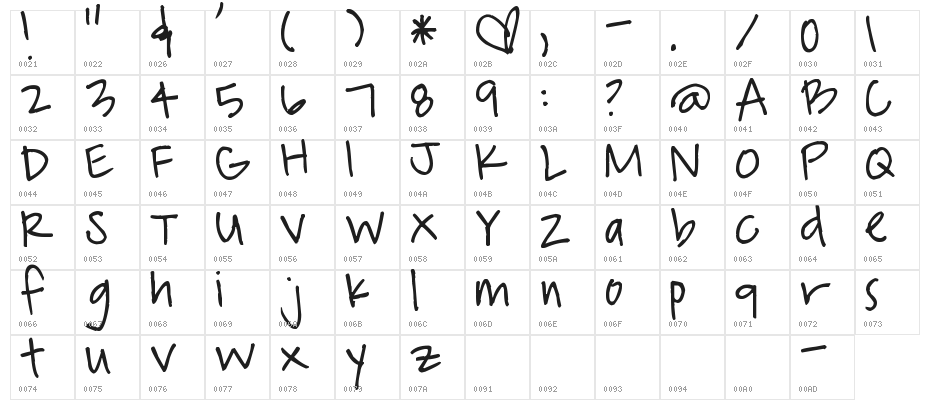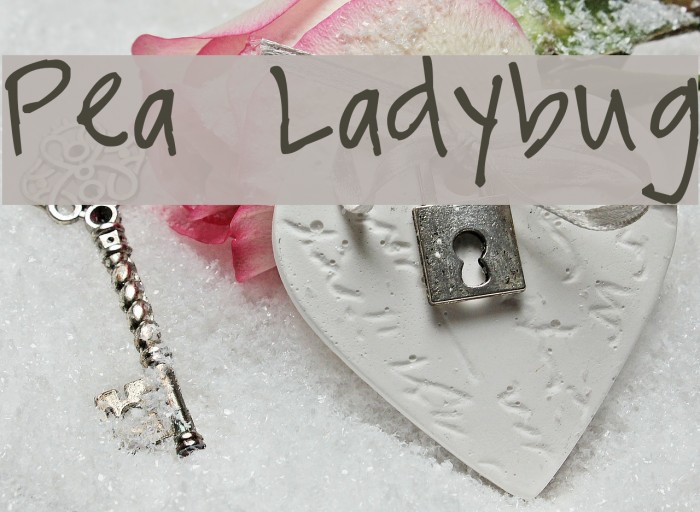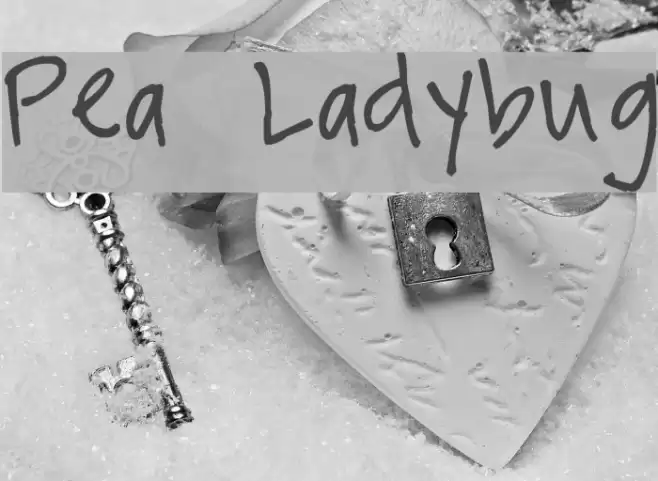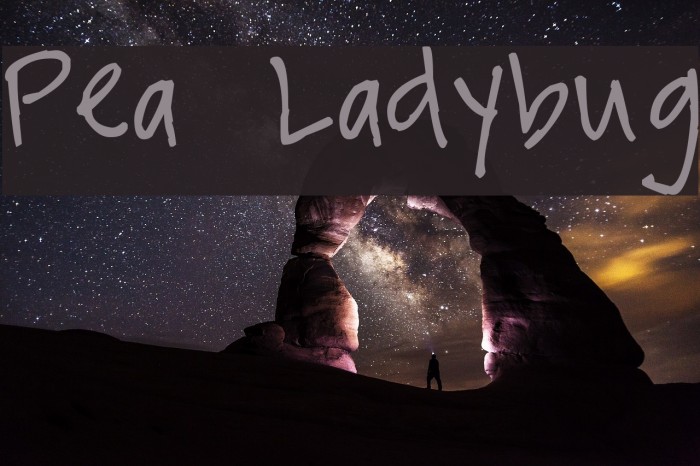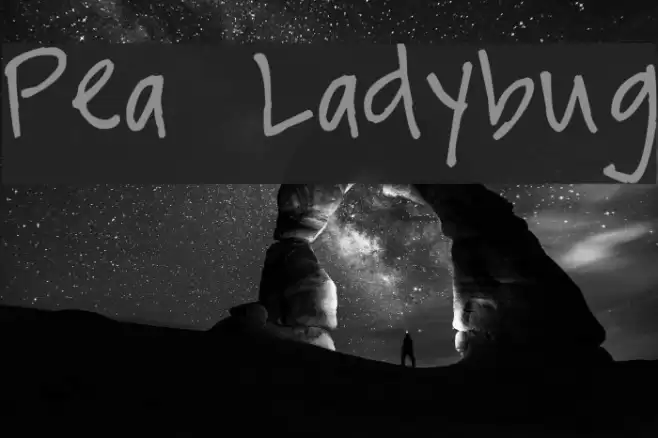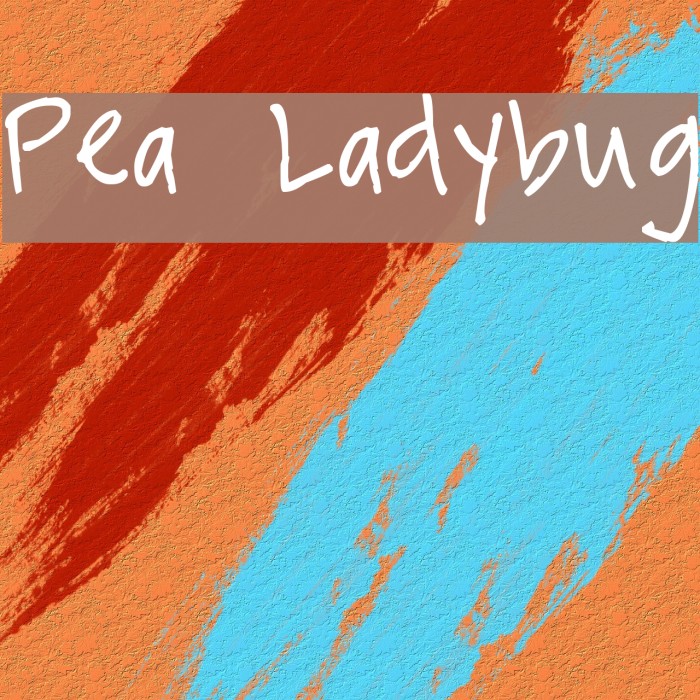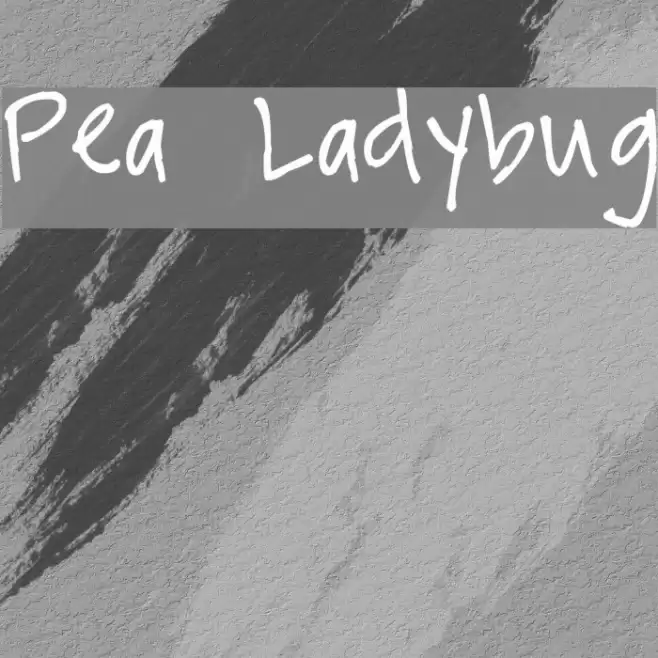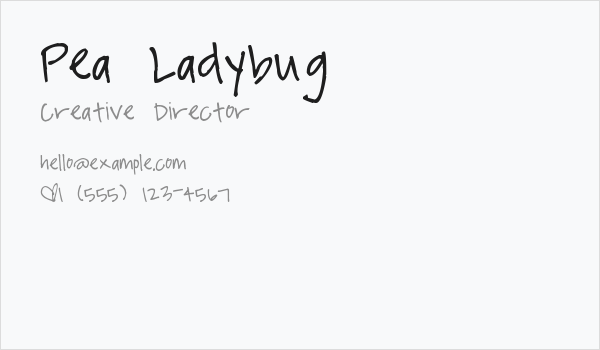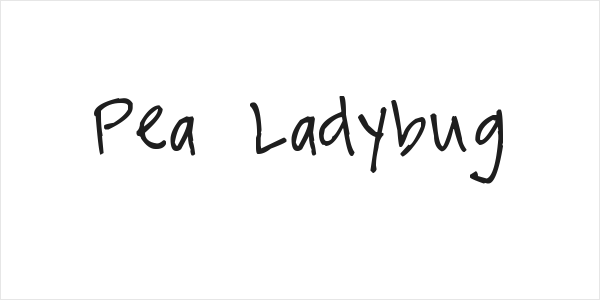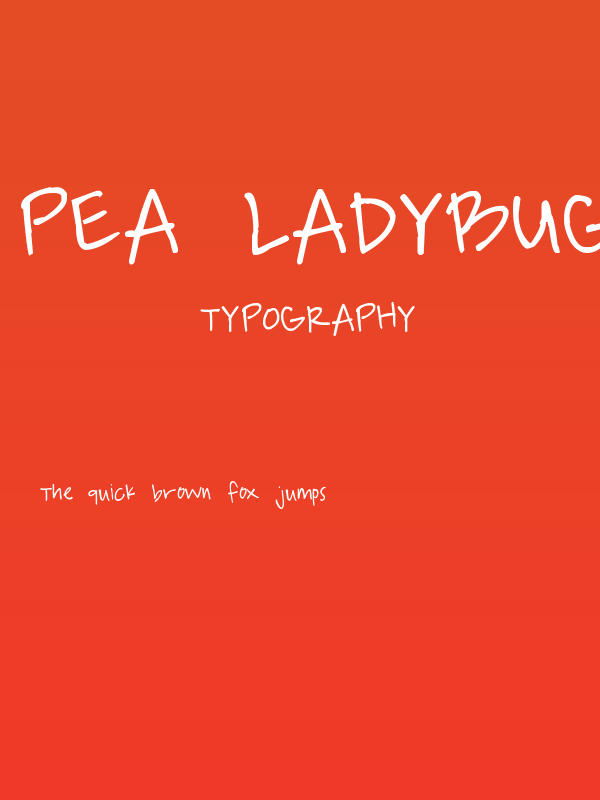
Pea Ladybug Font
Pea Ladybug Description
This font exudes a playful and casual handwritten style, characterized by its uneven strokes and organic flow. The letters have a natural, freeform appearance, reminiscent of a personal note or journal entry. Uppercase and lowercase letters maintain a consistent style, with rounded edges and a slightly tilted orientation, adding to its informal charm. Numbers and special characters follow the same whimsical design, ensuring a cohesive look across all text. The overall aesthetic is approachable and friendly, making it ideal for projects that require a personal touch.
| Use Case | Headlines, Informal text, Personal notes |
| Proposed Projects | Ideal for greeting cards, personal blogs, children's books, and informal invitations. |